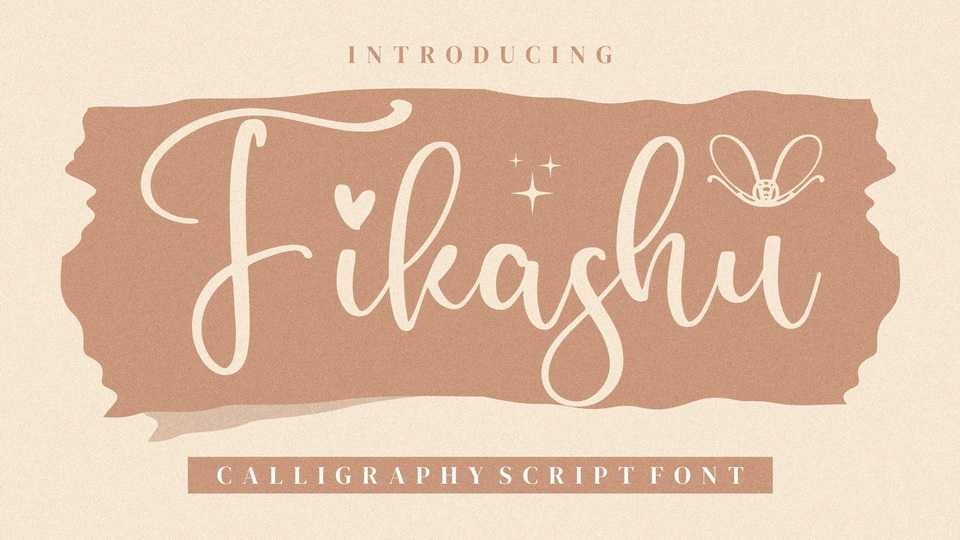
Download Fikashu font, a charming modern calligraphy typeface with a lively and cheerful look. Fikashu font is suitable for any projects such as logos, branding projects, merchandise, posters, cards, special events, and all your other luxury projects that need a natural taste.
Designer: Integritype Studio